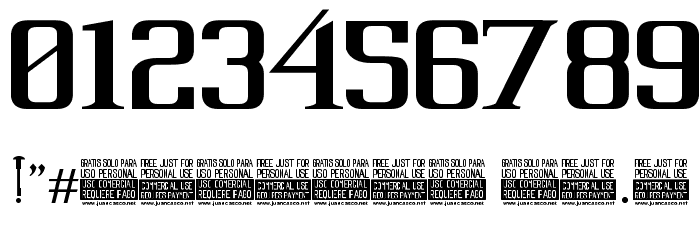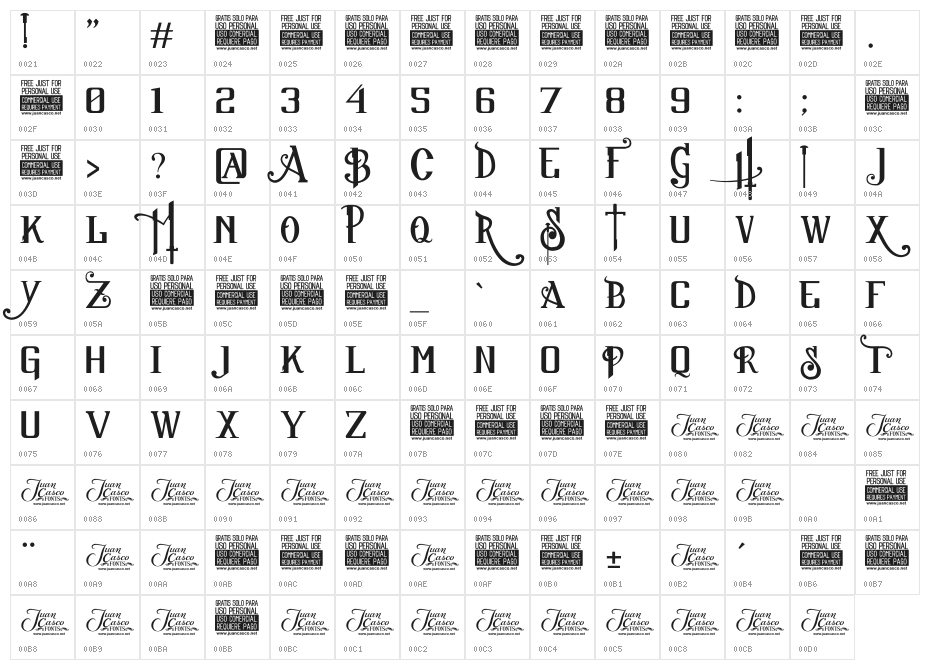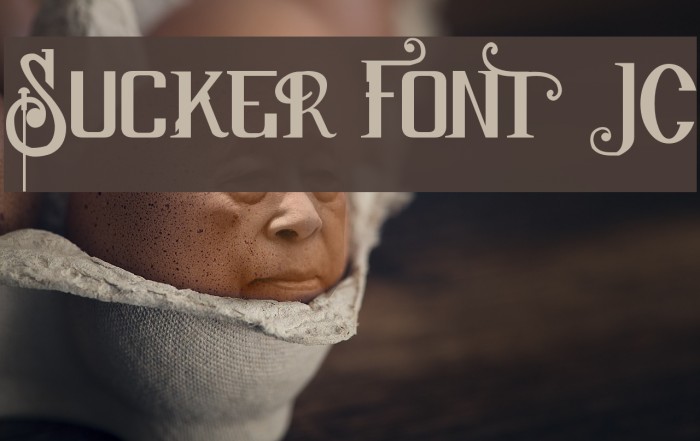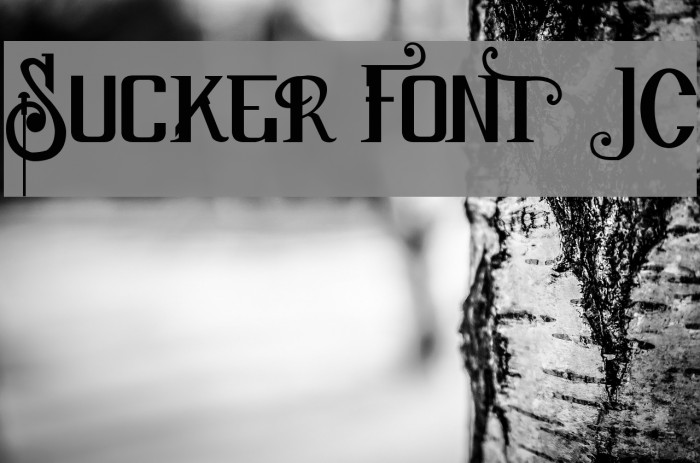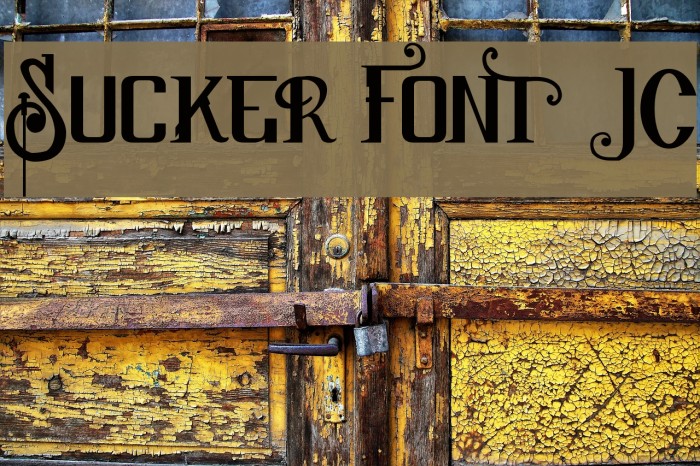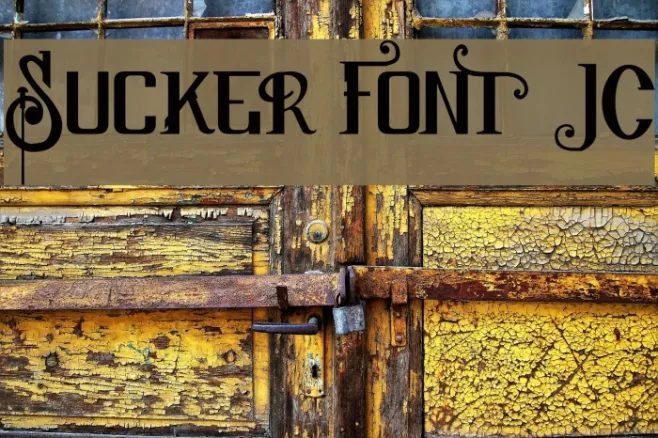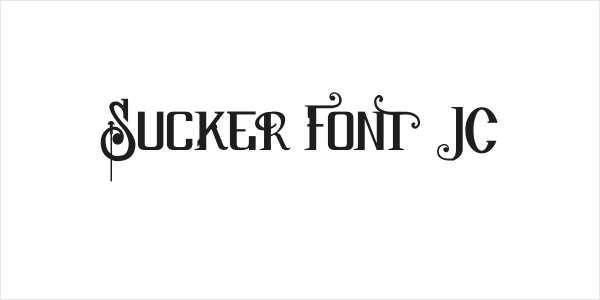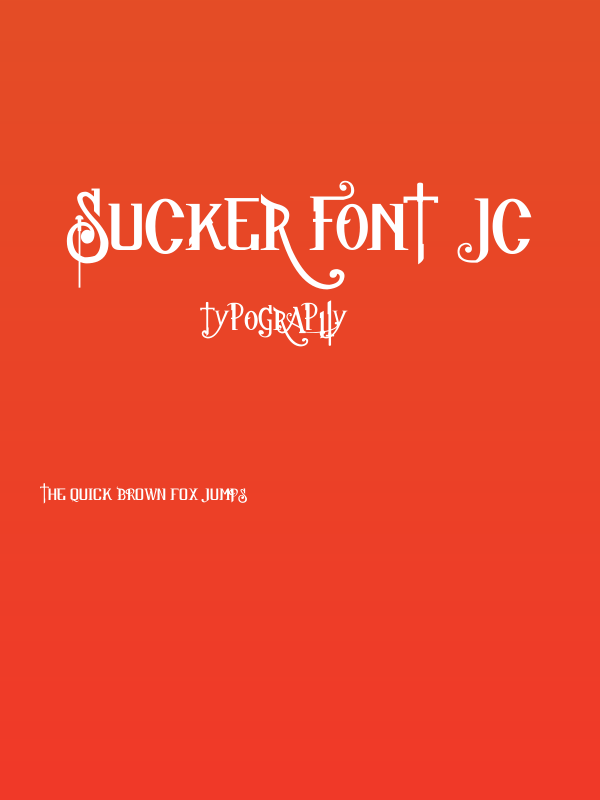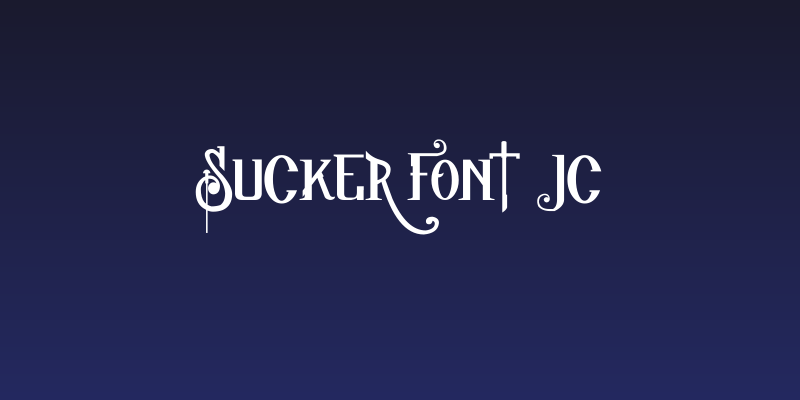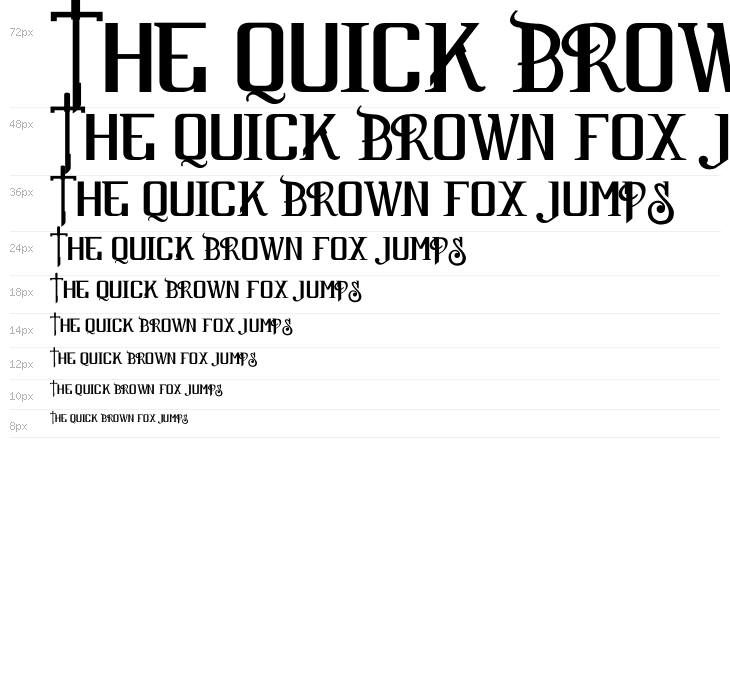
Sucker Font JC Font
Sucker Font JC Description
This font features a unique blend of decorative and classic elements, with uppercase letters showcasing intricate swirls and flourishes that add a whimsical touch. The lowercase letters maintain a more straightforward design, providing a balanced contrast. The numbers are bold and clear, making them easily legible. Special characters are creatively styled, enhancing the font's playful and artistic nature. This font is ideal for projects that require a touch of elegance and creativity, such as invitations, posters, or branding materials. Its distinct style makes it stand out, while still maintaining readability.